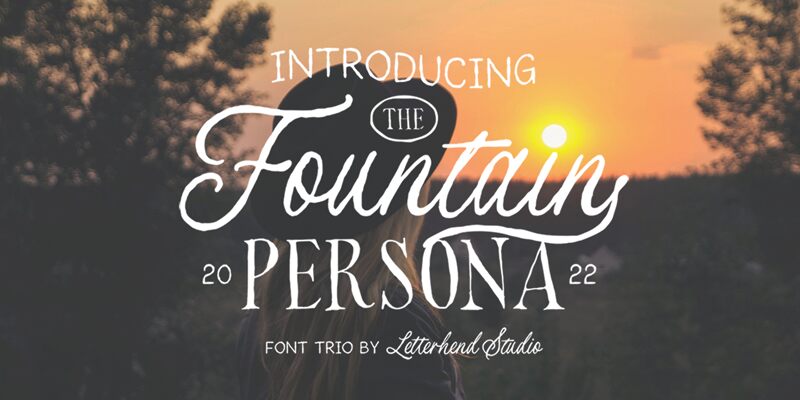
Fountain Persona 3, a creation of Letterhend Studio, stands out as a display font with a sleek and condensed profile that commands attention. Its elongated form exudes elegance and modernity, making it an excellent choice for designers looking to infuse their projects with a sense of sophistication. The font's crisp lines and neat finishing contribute to its aesthetic appeal that resonates with contemporary sensibilities.
The condensed nature of Fountain Persona 3 lends itself superbly to headlines, branding, and logo design where space is at a premium yet impact is paramount. Its distinct style ensures legibility while adding character to short texts or statements, ideal for visual advertising or fashion editorials where boldness is key. This font not only captures the viewer's eye but also holds it, leaving a lasting impression that epitomizes the essence of stylish communication.